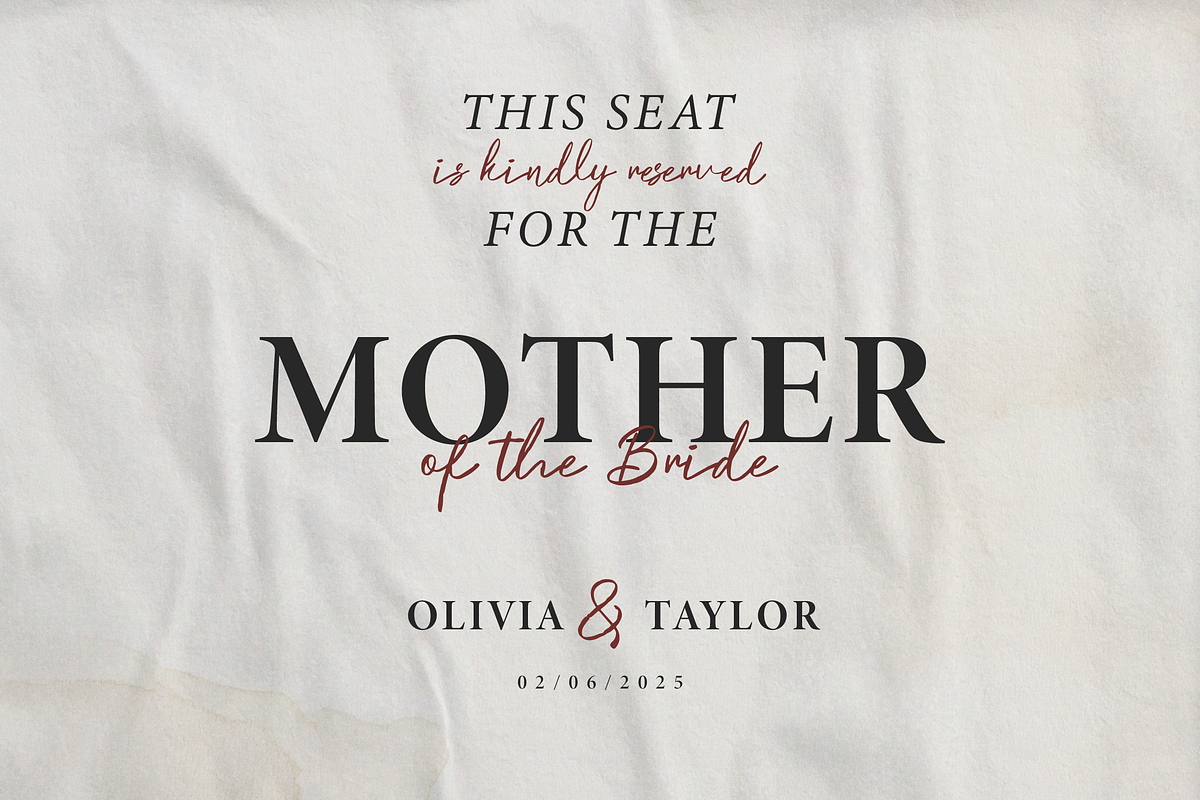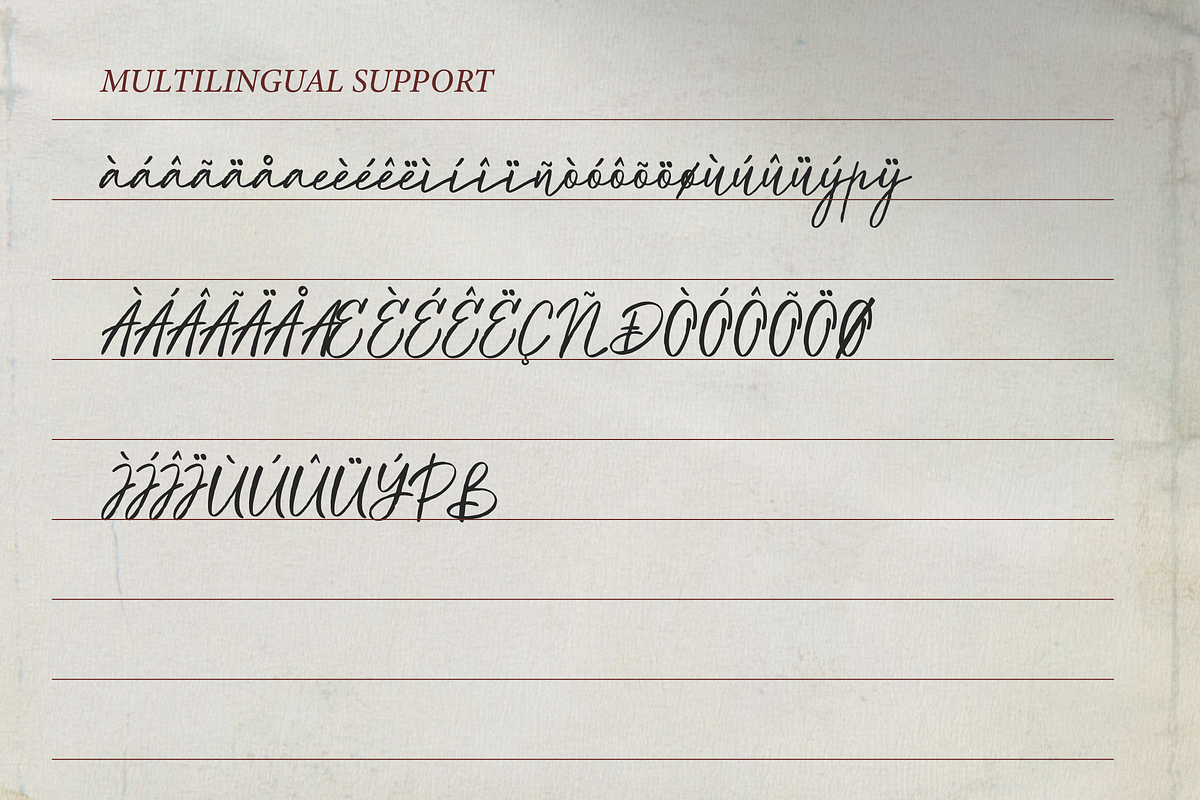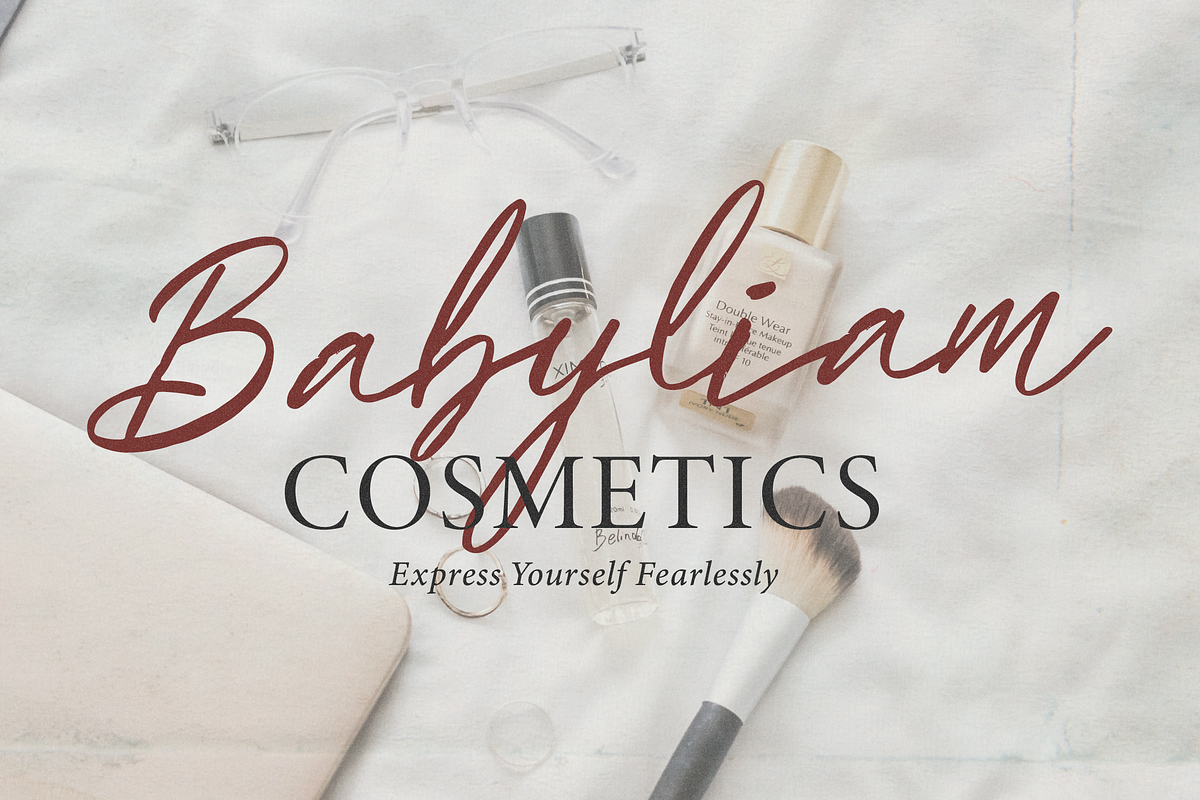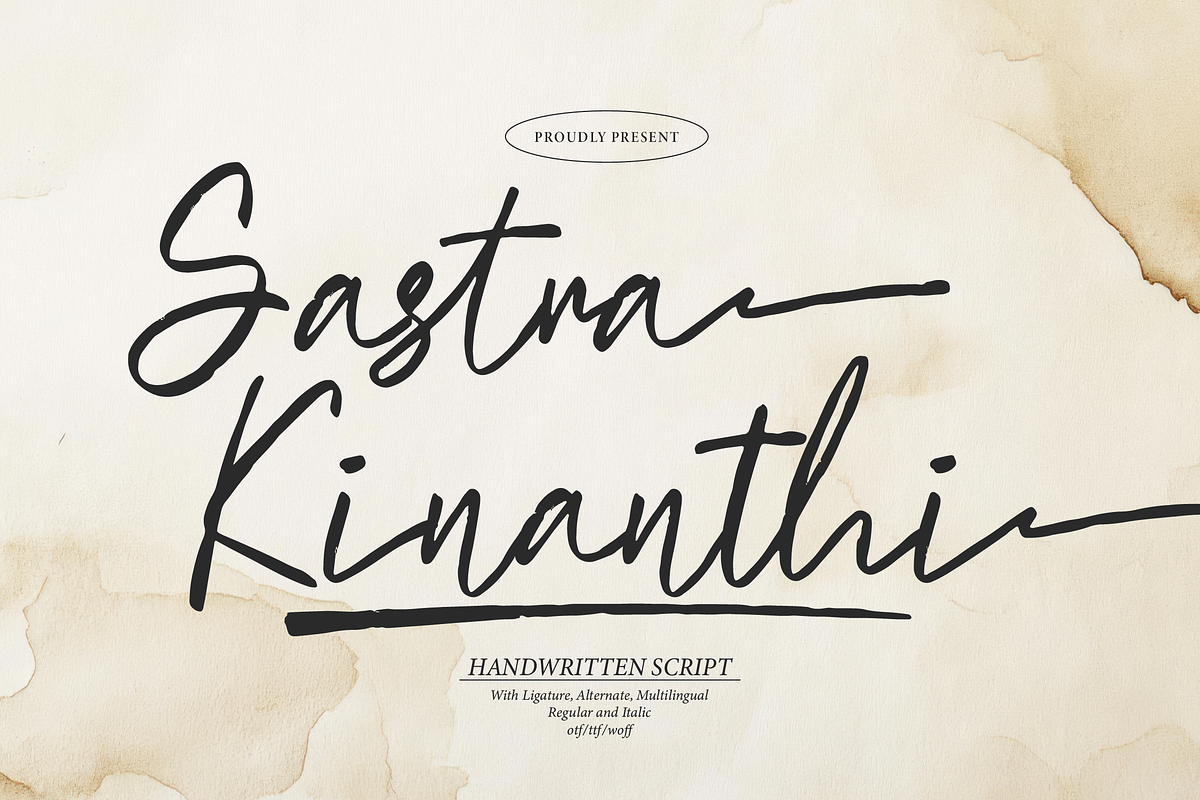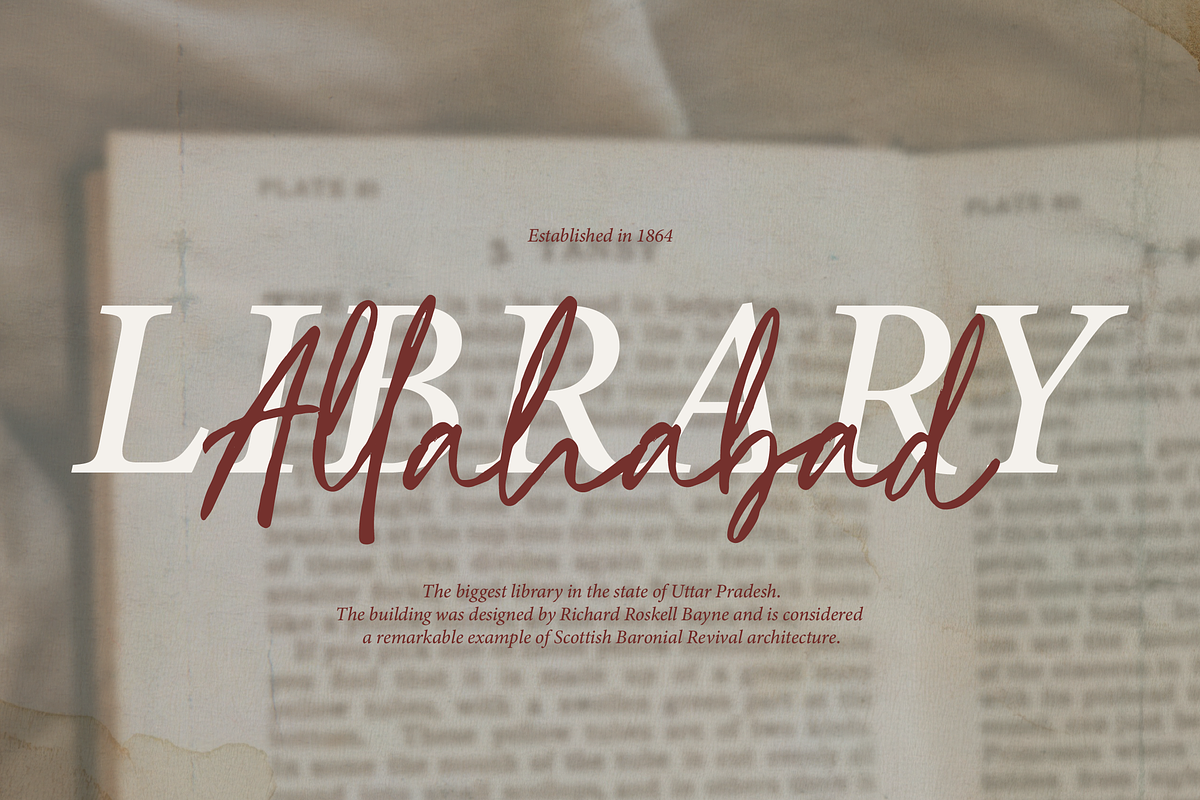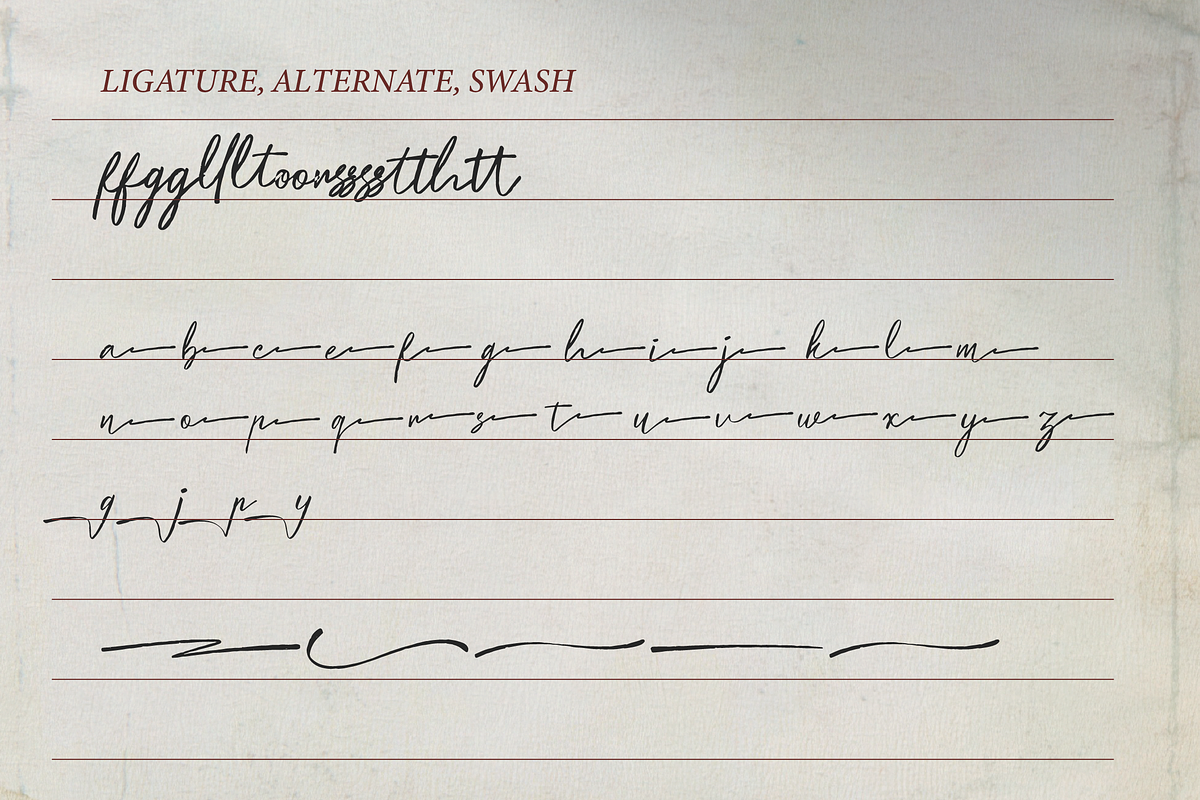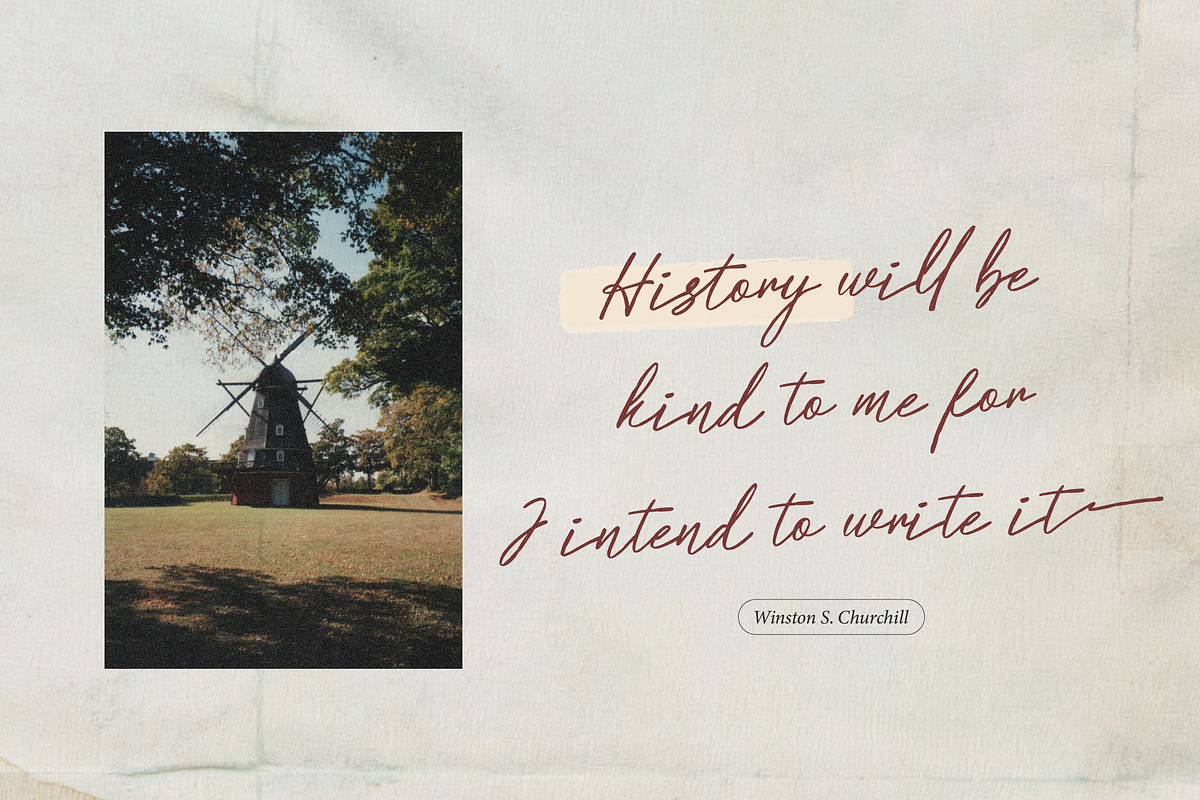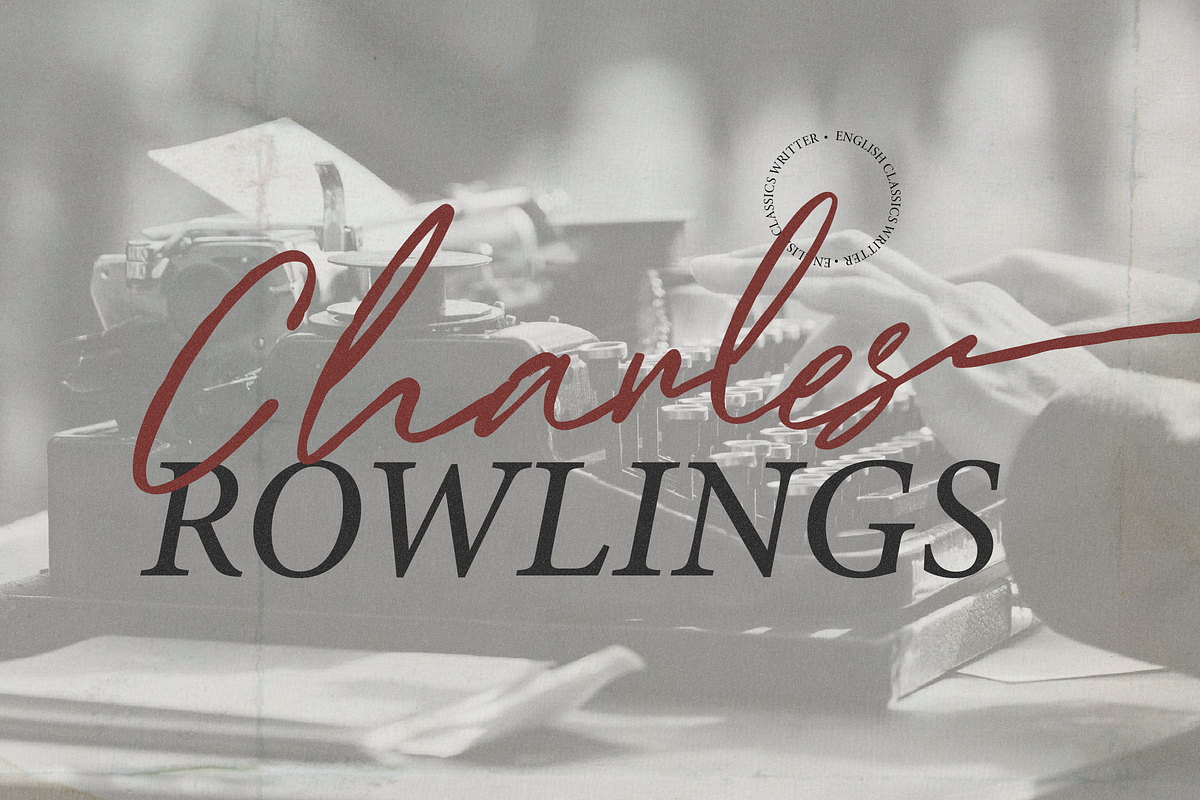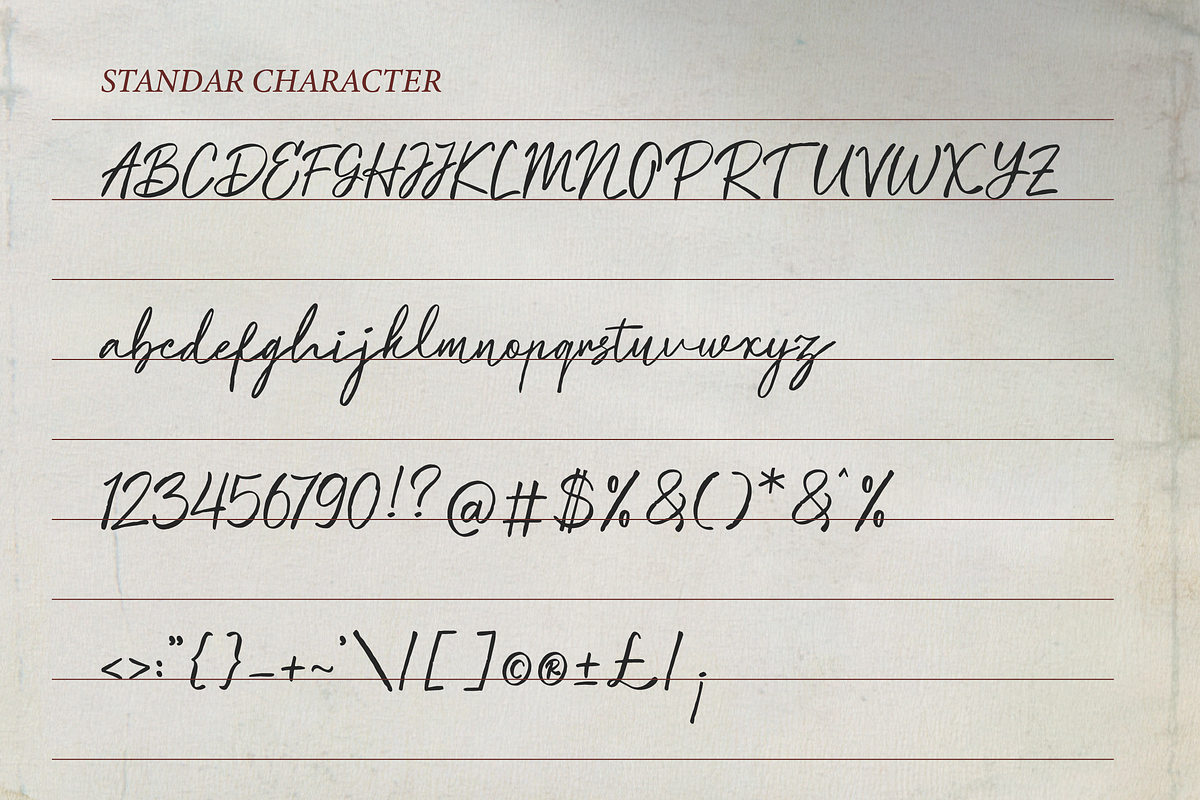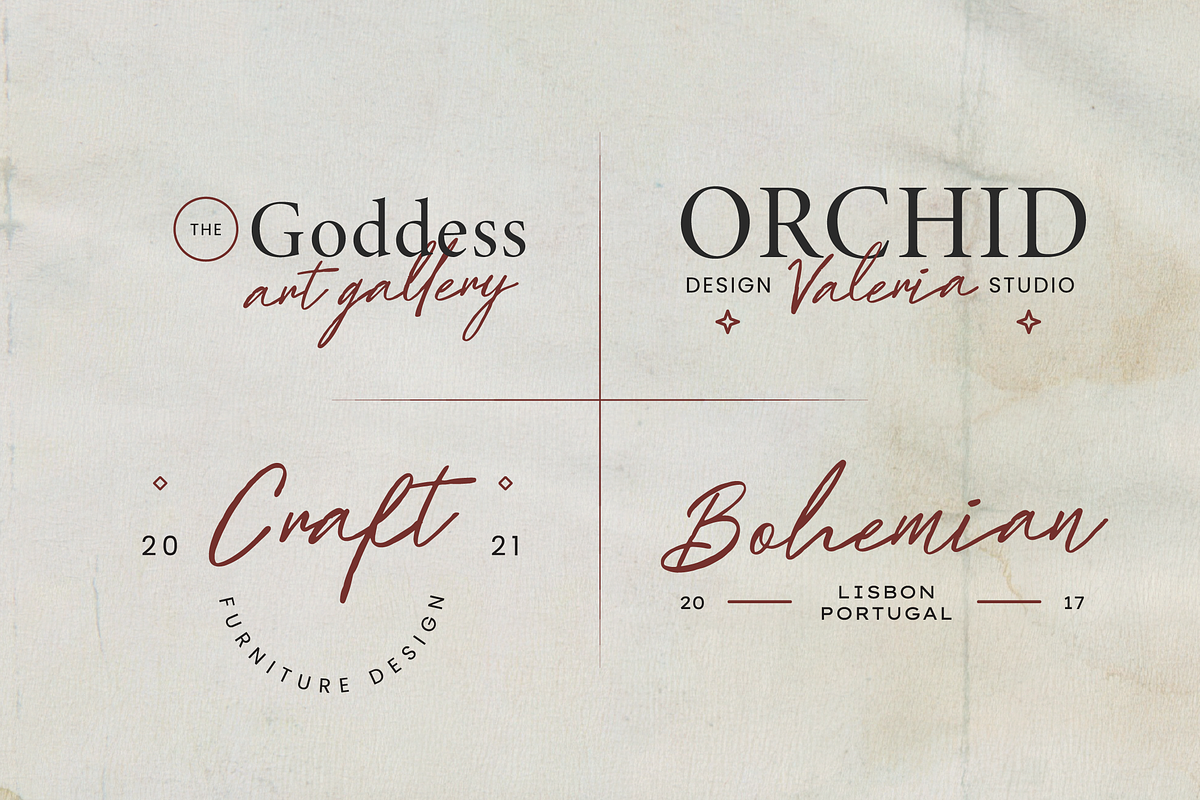
Sastra Kinanthi | Handwritten Script
Sastra Kinanthi | Handwritten Script, from Denustudios, suitable for any projects such as: logos, branding projects, homeware designs, product packaging, mugs, quotes, posters, shopping bags, t-shirts, book covers, name card, invitation cards, greeting cards, label, photography, watermark, special events, and all your other lovely projects that need a beautiful script taste.